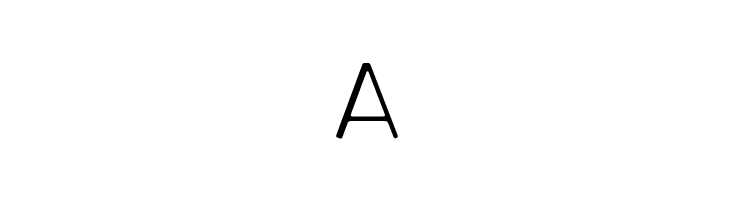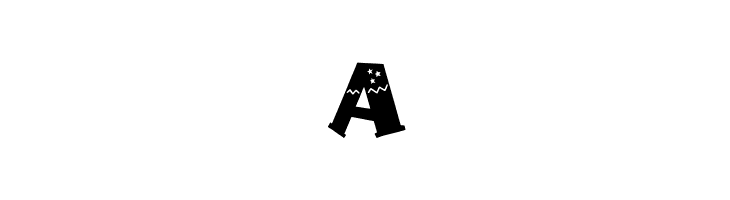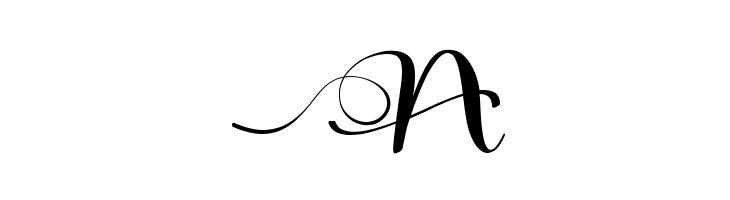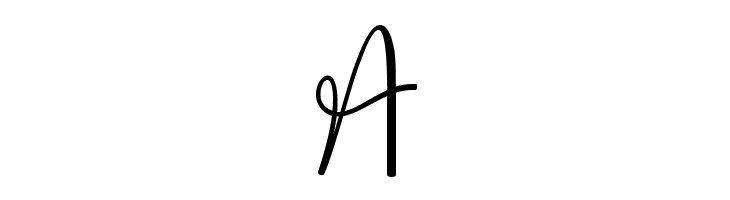
A festive, decorative font with holiday light details on each character.
A festive, decorative font with Christmas-themed embellishments on each character.
A playful, festive script font with bold, flowing letterforms and medium contrast.
A whimsical script font with elegant, flowing cursive letters and decorative flair.
An elegant, flowing script font with a handwritten appearance.
An elegant, flowing script font with decorative flourishes, perfect for festive designs.
A festive, cursive script font with elegant swirls and decorative flourishes.
An elegant and flowing script font with ornate, cursive letters.
A whimsical, festive script font with decorative elements like stars and hearts.
A playful, festive script font with flowing, interconnected letters and decorative flourishes.
A charming and elegant script font with flowing, cursive letterforms.
A festive, cursive font with elegant loops and swirls, perfect for holiday themes.
A bold, playful font with rounded, festive characters ideal for holiday themes.
A playful, festive font with bold, rounded characters and decorative inline elements.
A bold, playful handwritten font with rounded, consistent strokes.
A bold, playful script font with a handwritten style.
A bold, playful script font with smooth, flowing curves.
A playful, festive script font with elegant loops and swirls.
A festive, cursive script font with a playful and elegant style.
A bold, italicized script font with a festive and playful style.
A playful, bold font with a whimsical, hand-drawn style.
A playful and whimsical font with smooth, flowing lines and slightly irregular shapes.
A decorative font with geometric, elongated letterforms and high contrast strokes.
A playful, handwritten font with smooth curves and a whimsical style.
A whimsical, hand-drawn font with tall, narrow characters and festive star accents.
A whimsical and festive script font with playful curves and a hand-drawn feel.
A festive, bold font with playful holiday-themed patterns.
A playful, energetic font with script and sans-serif elements, ideal for festive designs.
A playful, bold font with decorative curls and swirls, perfect for festive designs.
A playful, handwritten font with rounded edges and a casual style.
A playful, hand-drawn font with tall, narrow letters and a whimsical style.
A festive, star-adorned script font perfect for holiday designs.
A festive, elegant script font with intricate swirls and loops.